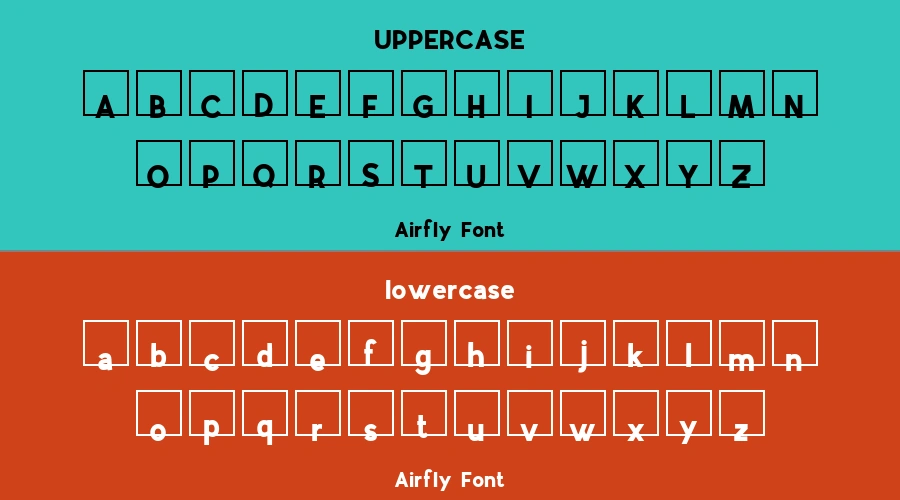
About Airfly Font
Airfly Font represents a sophisticated approach to type design, balancing humanist proportions with aesthetic balance. Perfect for social media content, this font family showcases impressive durability and literary appropriateness throughout its character set. Designers appreciate its versatility and reliability.
Designers will appreciate nuanced touches including elegant proportions and isolated forms, adding sophistication to any project. These features become apparent in page numbers, where format conversion matters most. The careful treatment of x-height and design lineage ensures optimal performance.